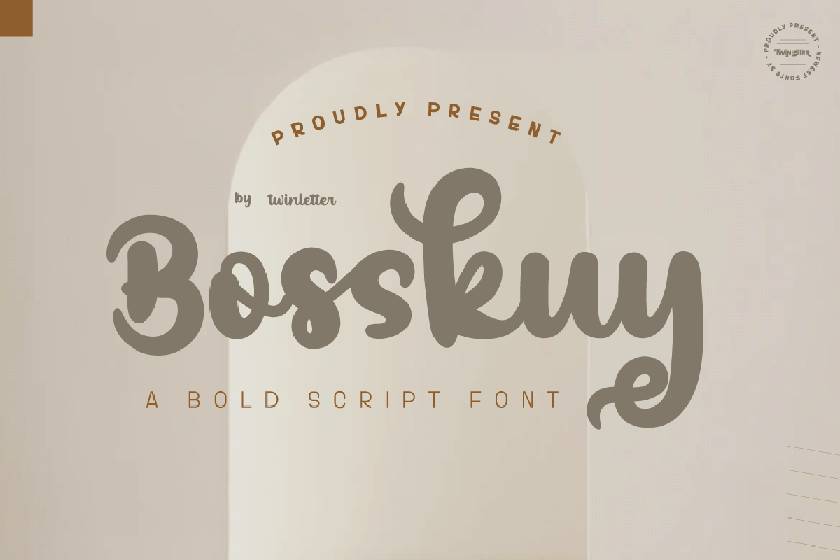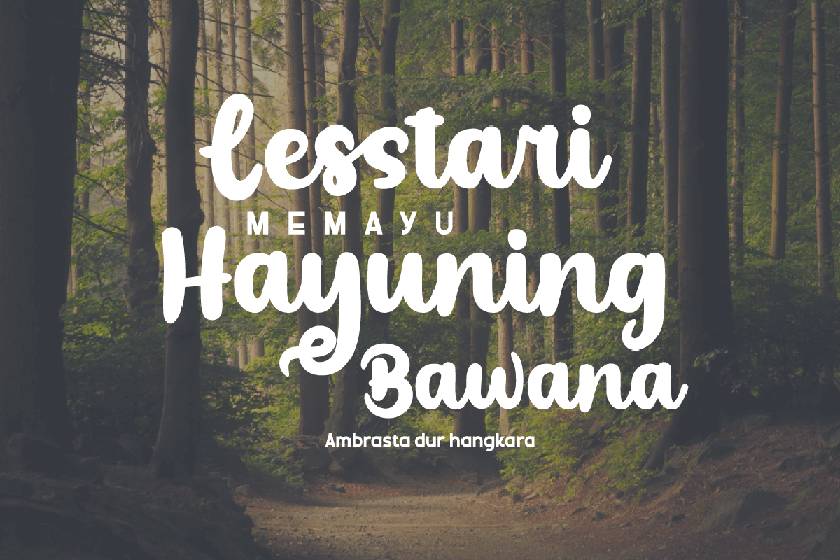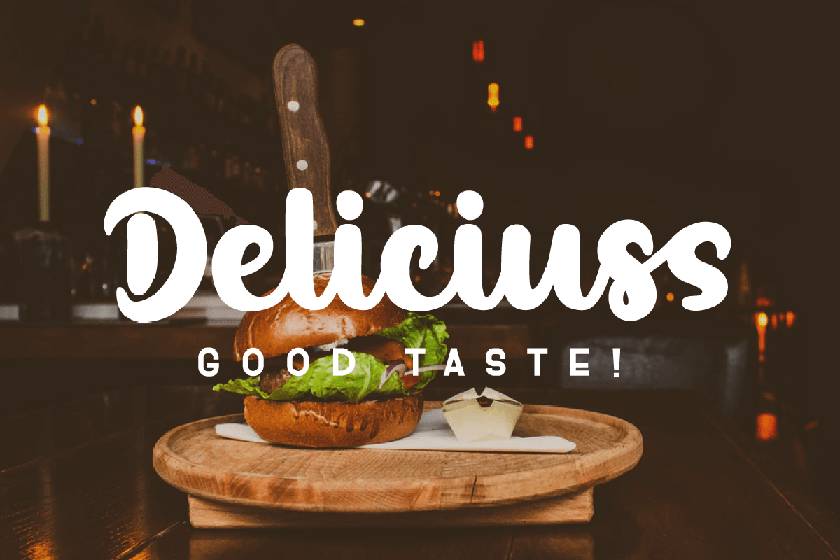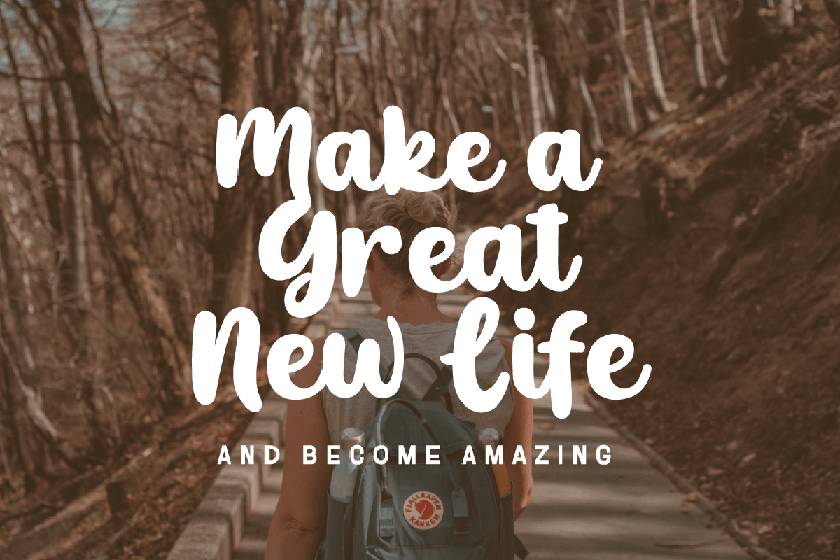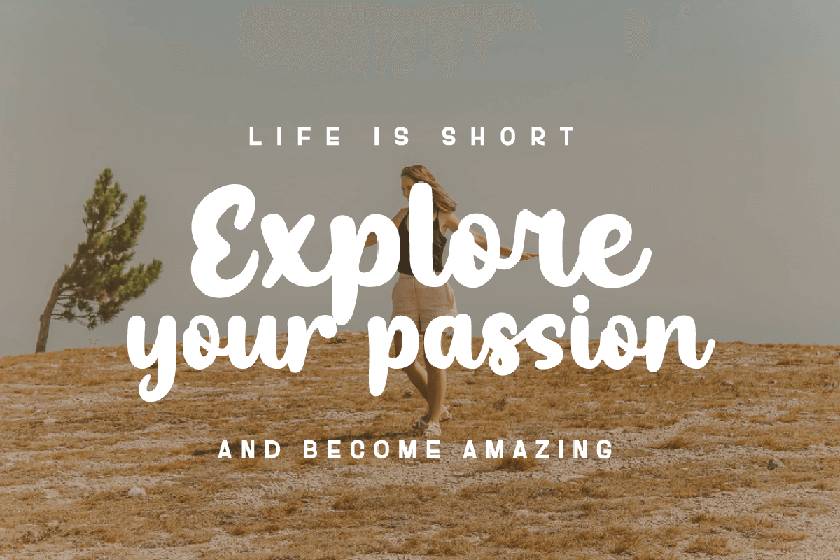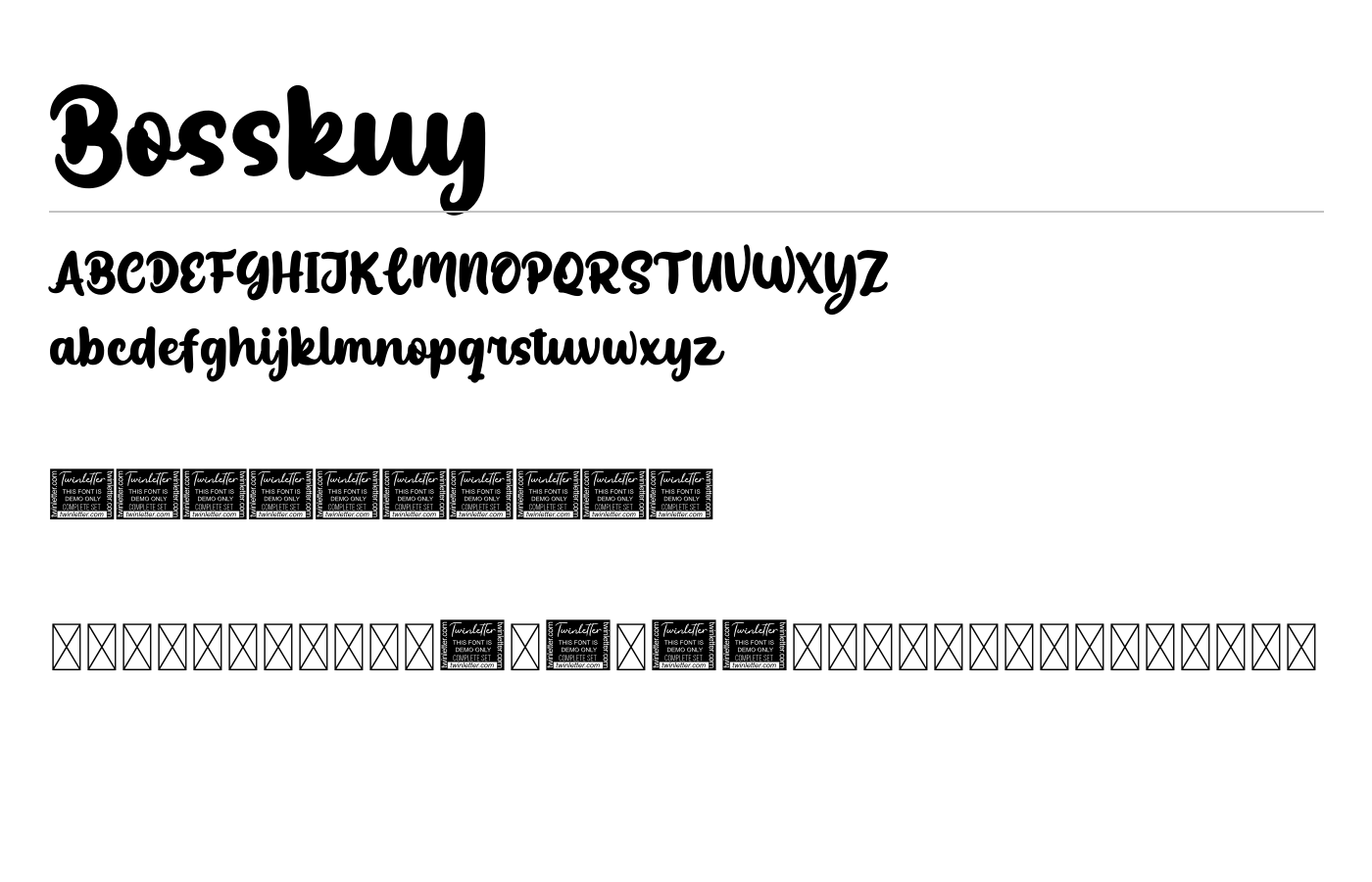
Bosskuy is a bold, playful script font with a casual, hand-drawn feel that combines smooth rounded strokes and lively letterforms. Its friendly and approachable style works well for creative branding, packaging, and headlines where a personal, informal touch is desired. This font’s thick weight and energetic curves make it eye-catching and perfect for adding warmth and personality to design projects.
Bosskuy Font
About Bosskuy Font